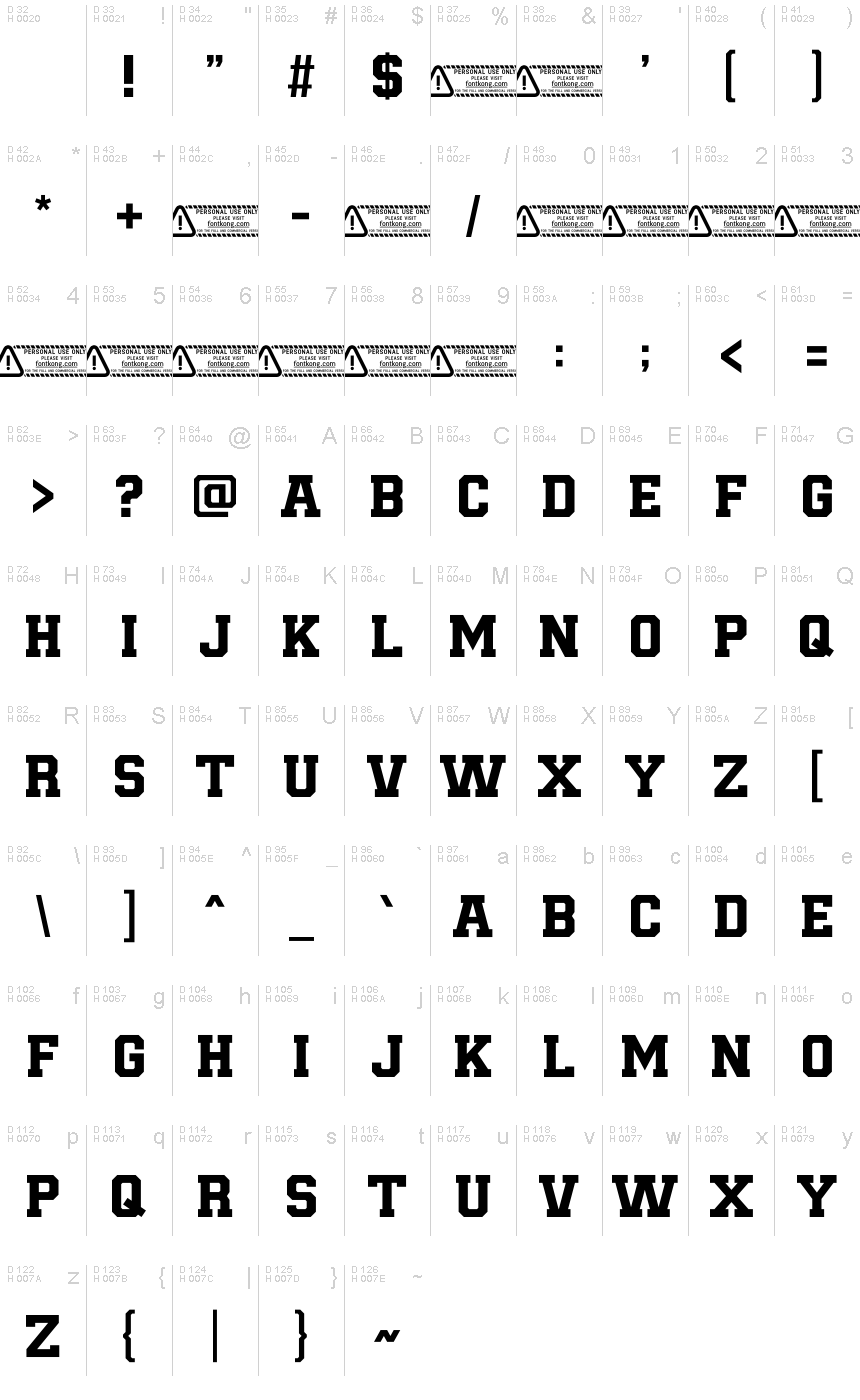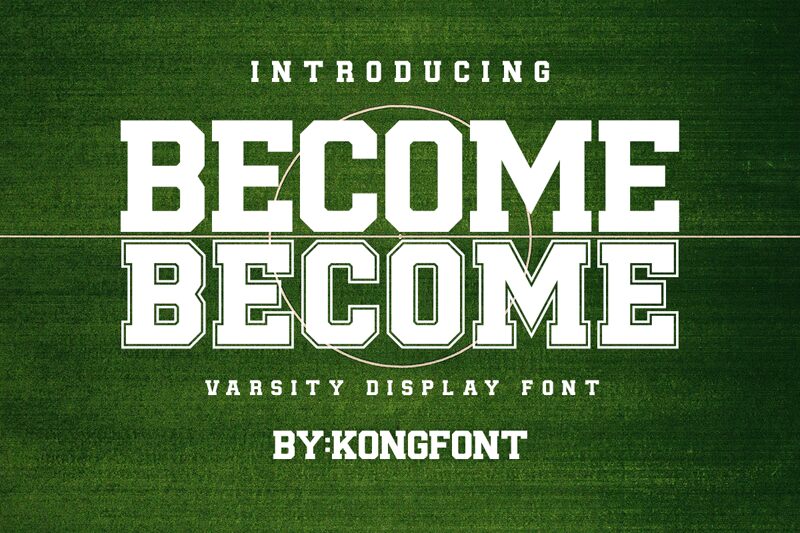
BECOME commands attention with its bold, old-school aesthetic. Designed by Kong Font, this display font exudes a sense of strength and authority. The thick, unapologetic strokes convey a sense of permanence, while the vintage-inspired details add a captivating touch of nostalgia.
Ideal for headings, logos, and impactful branding, BECOME seamlessly bridges the gap between classic and contemporary design. Its powerful presence lends itself well to a variety of contexts, from editorial layouts to product packaging. Whether used as a standalone element or paired with complementary typefaces, this font effortlessly demands the viewer's focus, making a lasting impression.